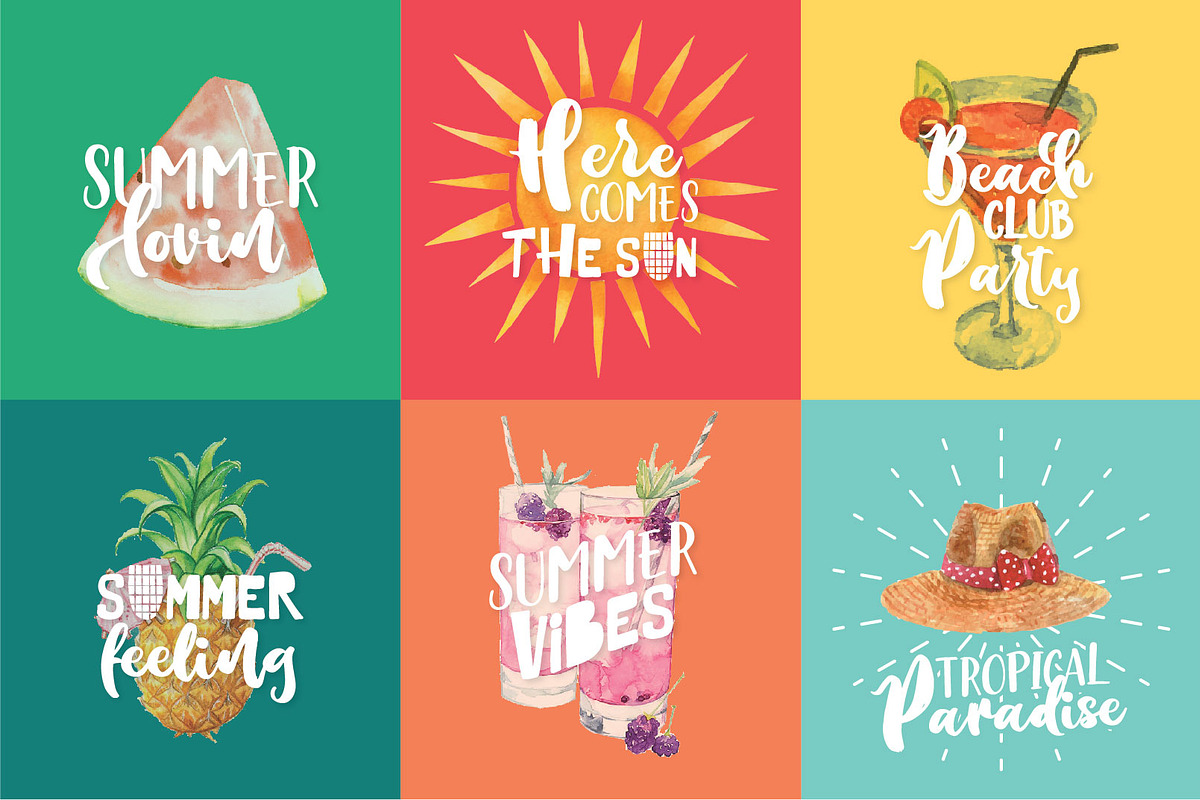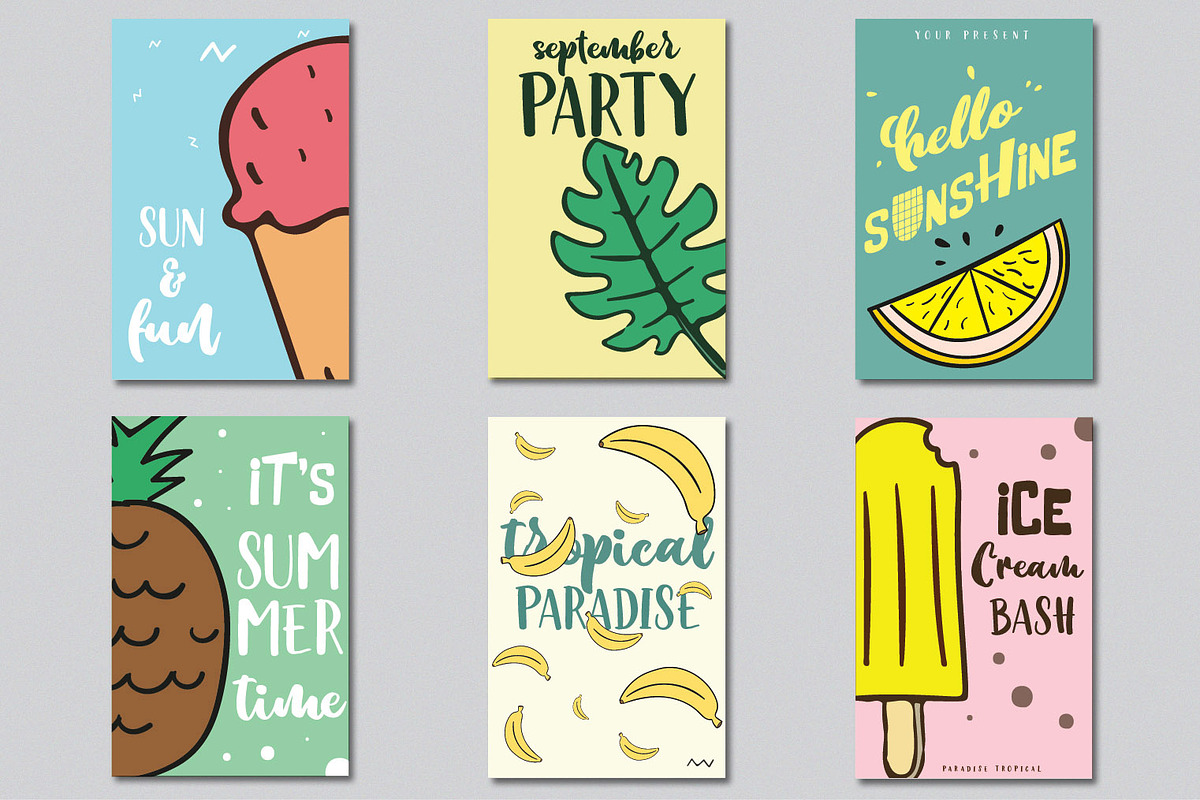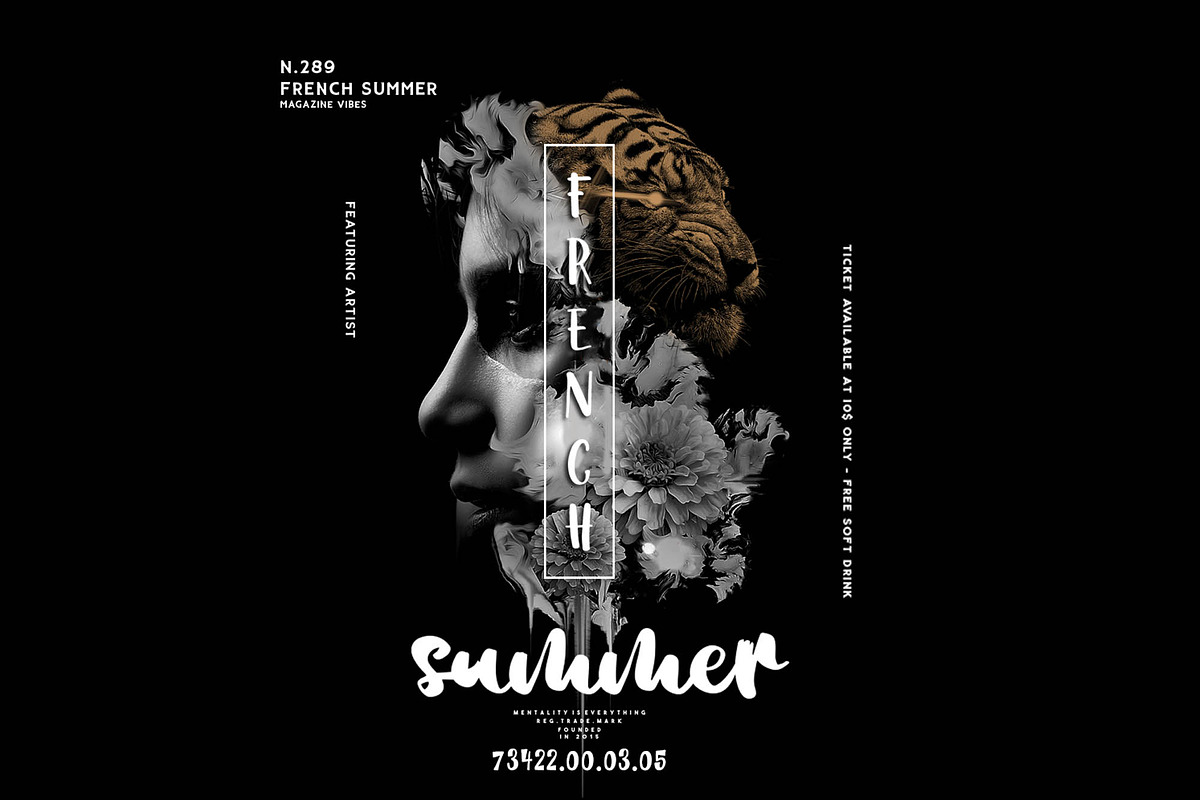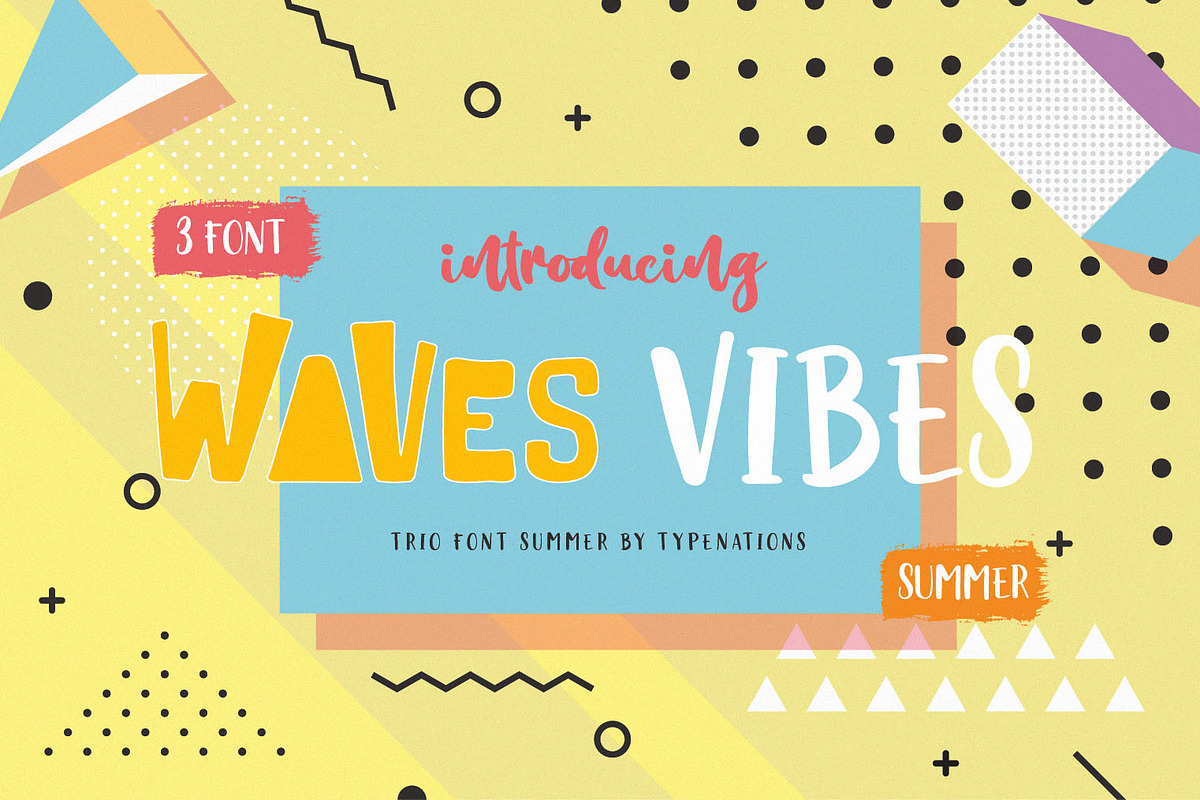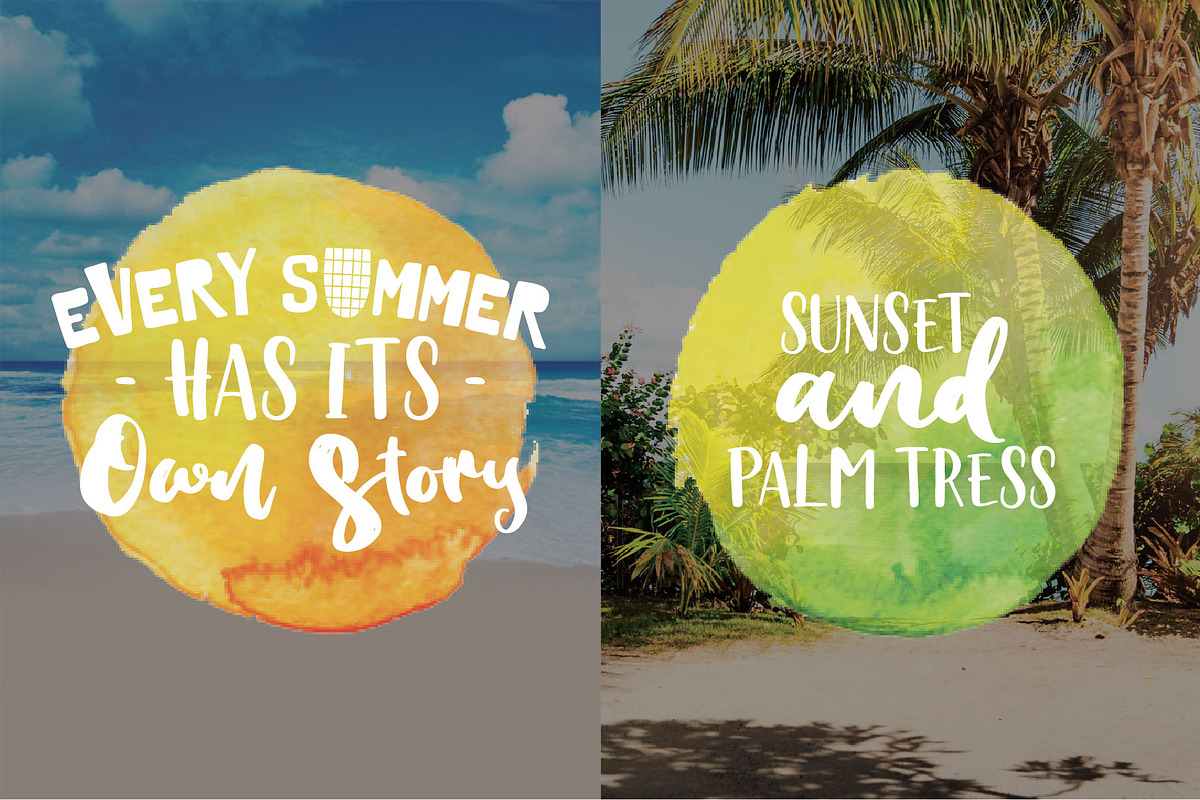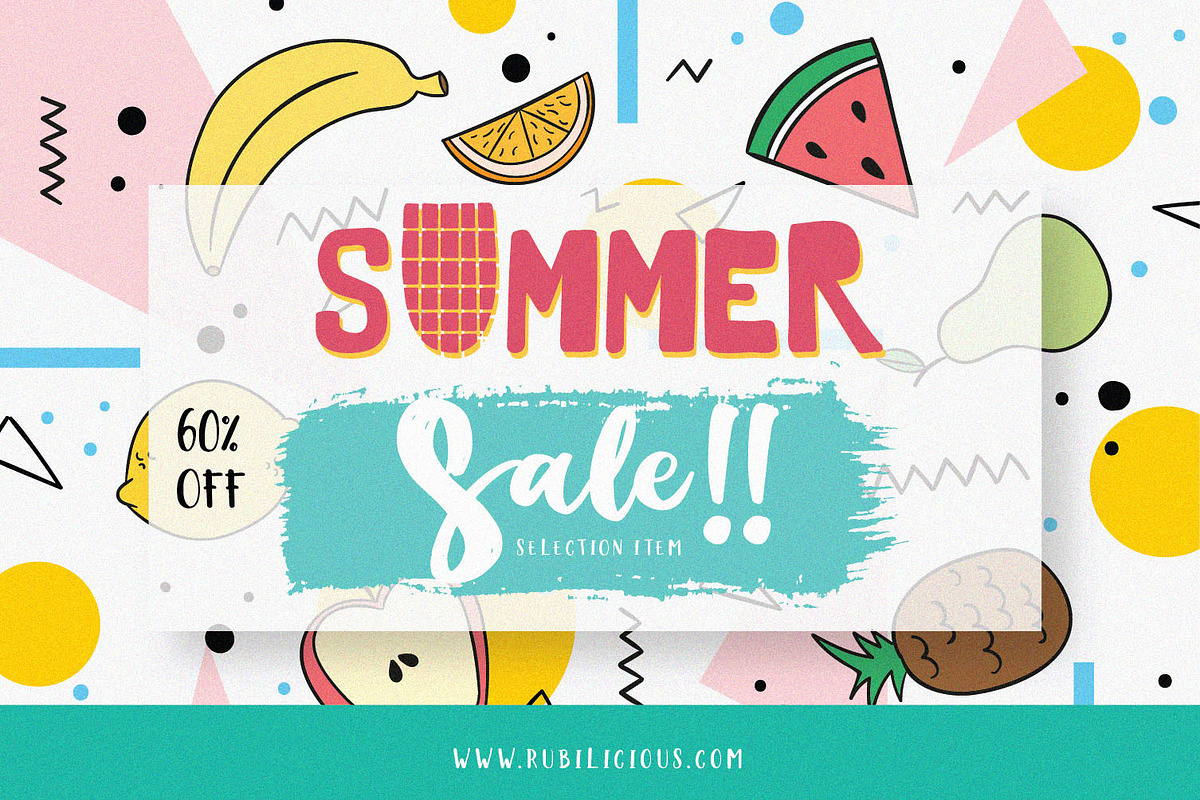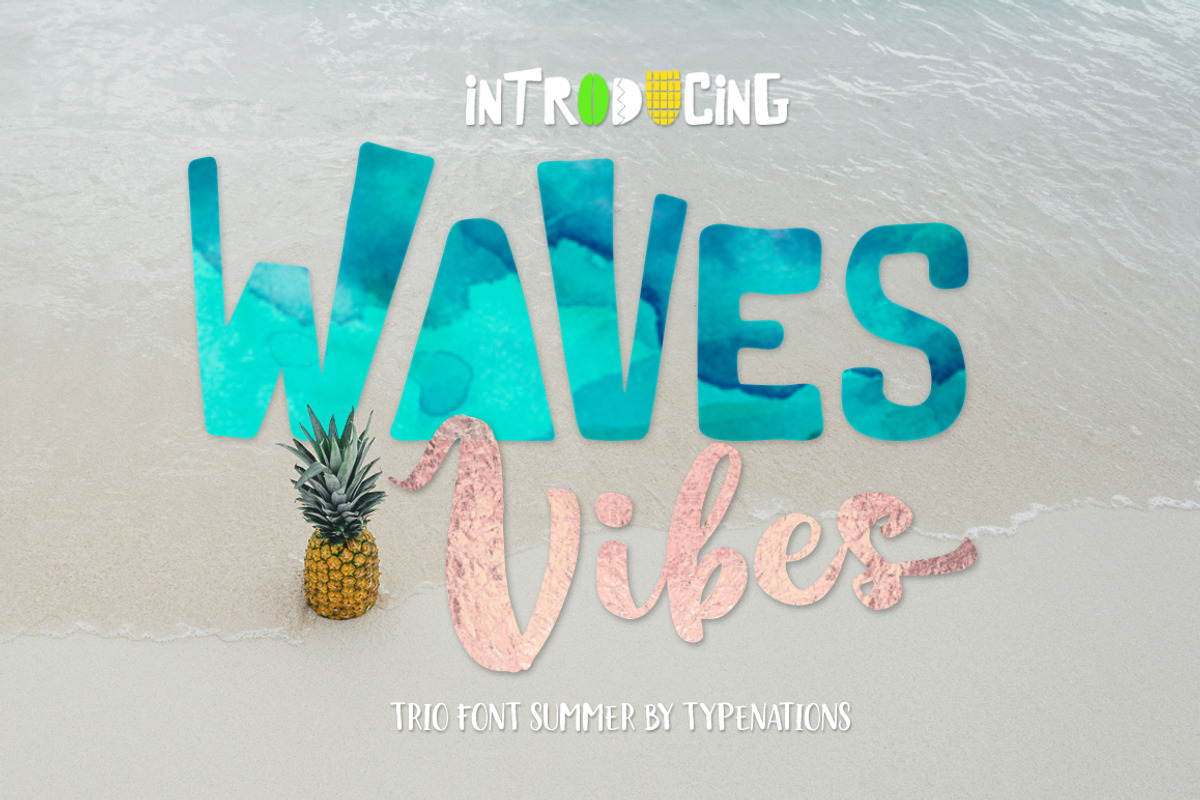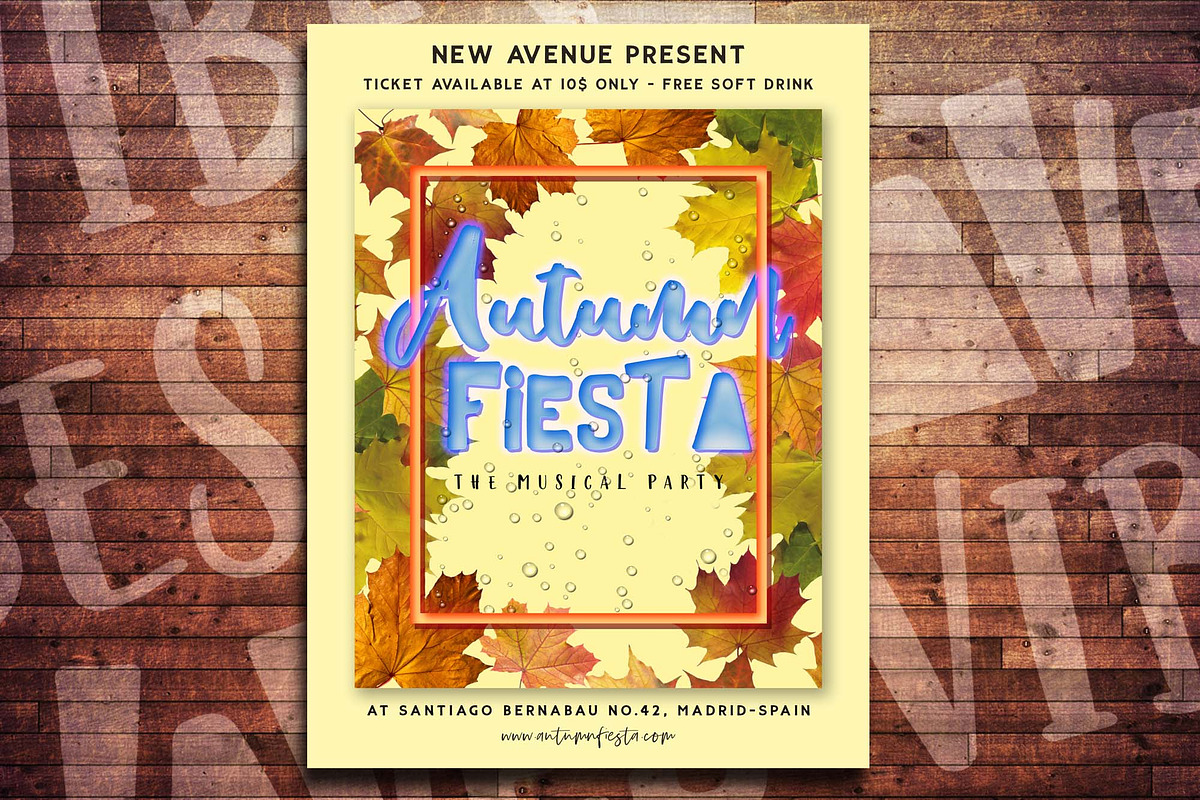
Waves Vibes Trio Font
Introducing, our second product Waves Vibes served with three different font types. Block, script, serif. The script also comes with Ligatures and Stylistic Alternates that will make the signature font more real.
that will make you got a lot of imagination for design idea.. They are meant to cheer up anything they are put into: brand/store names, events, party invitations, festival. Literally, everything that sparks up the joy around!
Character set A-Z with special uppercase letters
Stylistic Alternates And Ligatures
Alternates ( Waves Vibes Script & Waves Vibes Block )
Ligatures ( Waves Vibes Script )
Waves Vibes Trio Font by Typenations fits naturally into Branding, posters, packaging, typography.